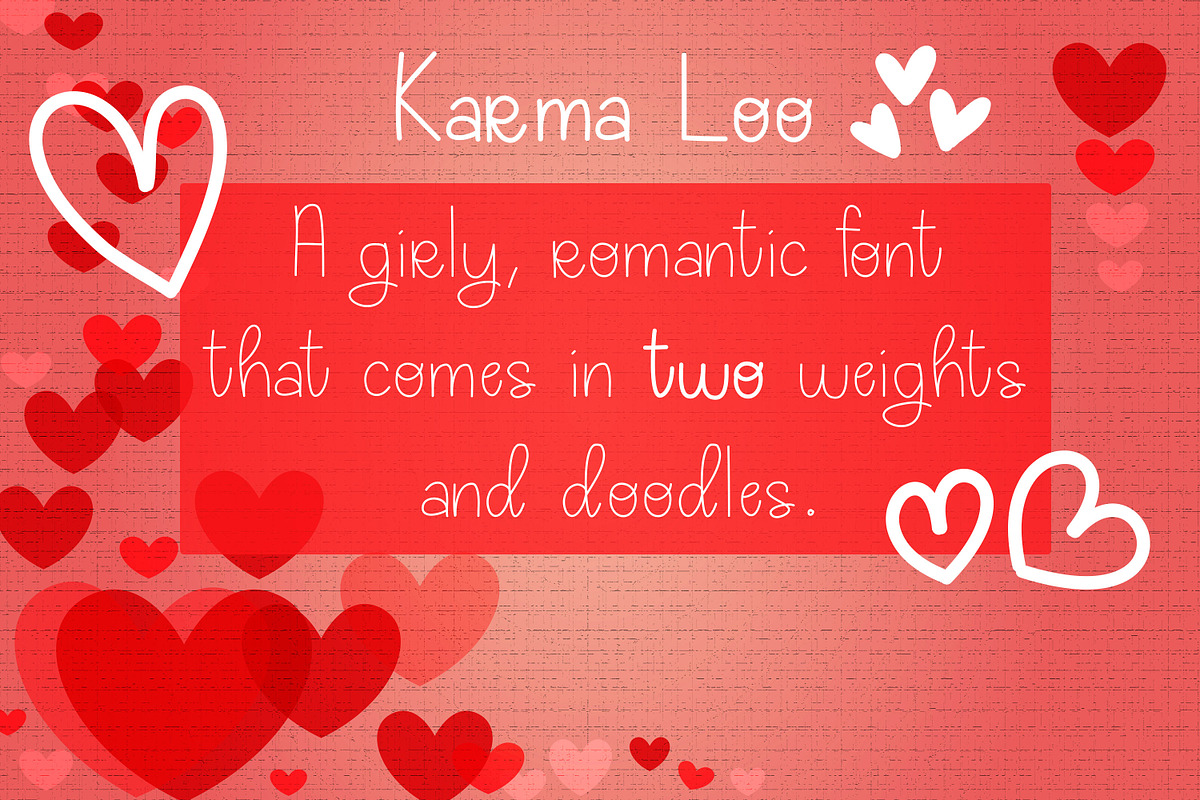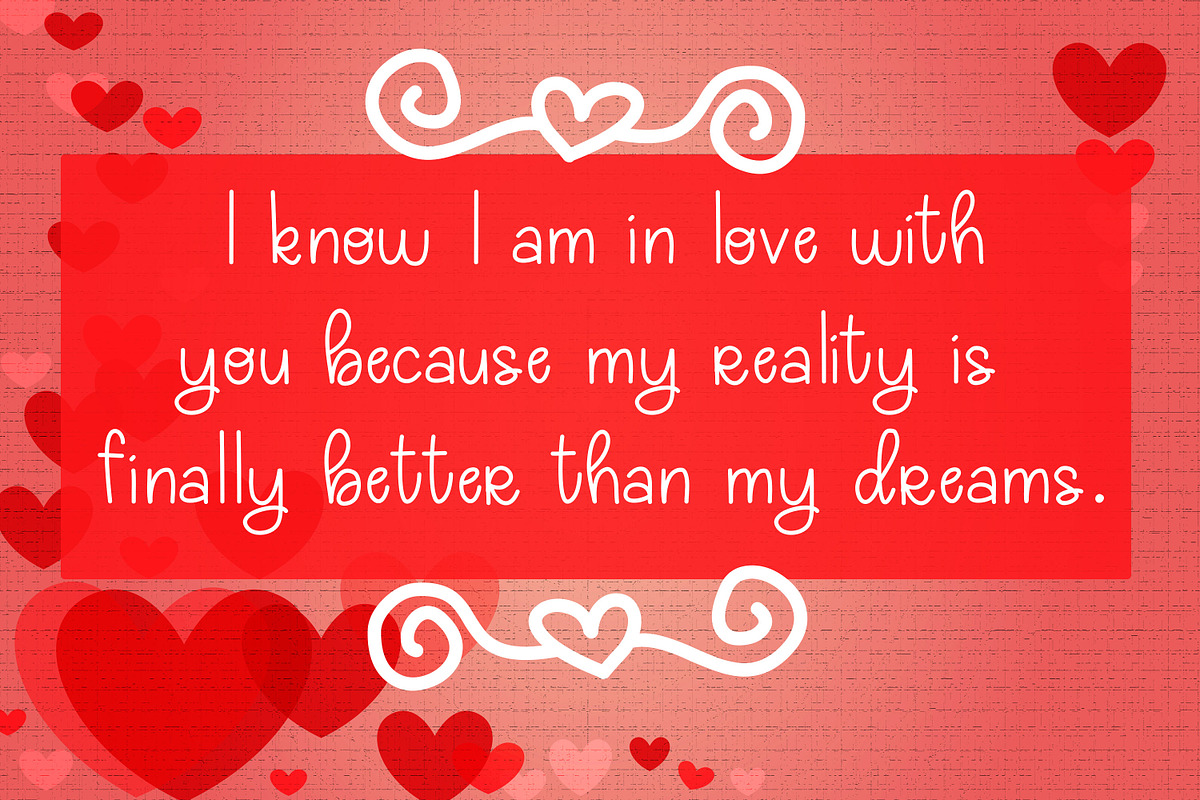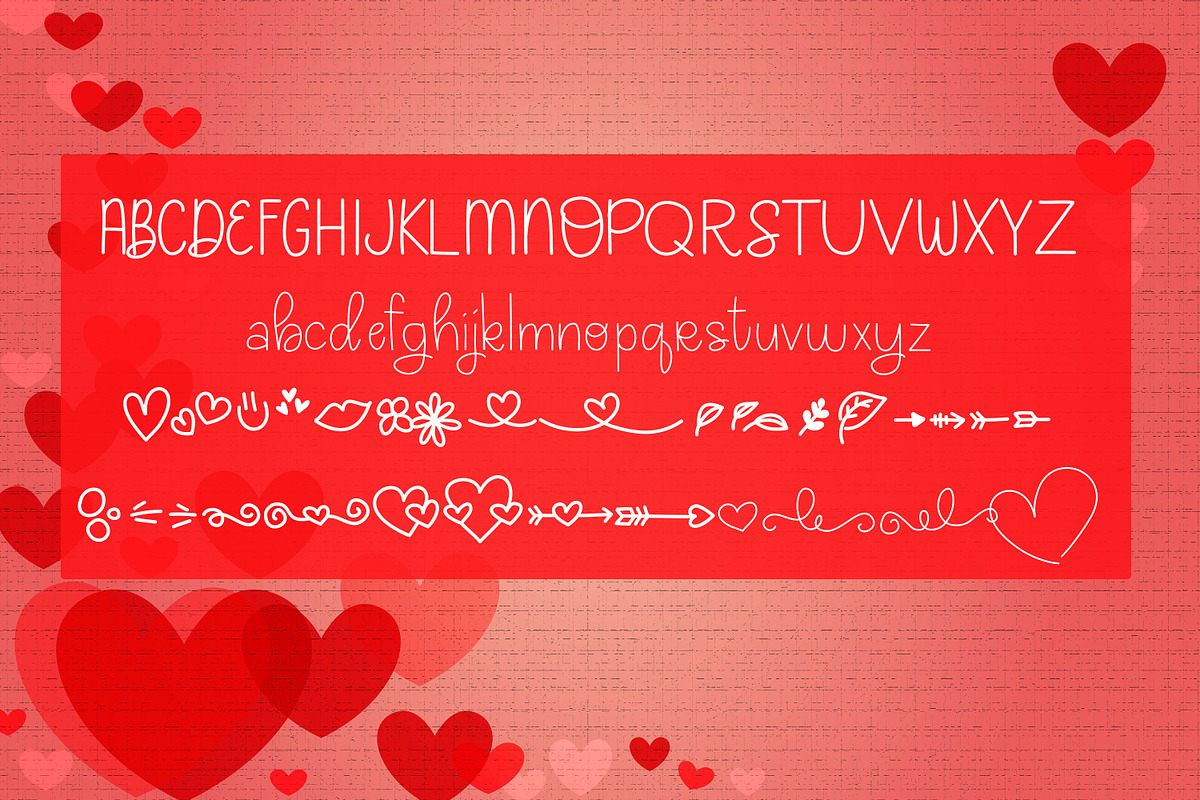
Karma Loo
Karma Loo is a cute, handwritten girly font. This font is perfect for Valentine's day cards, cute pseudo-handwritten notes (I get it, if your handwriting sucks, this one will do the job for you), and even charming logos. This font has a full set of uppercase and lowercase letters, two weights, and over 30 doodles. :) You can use this font for:
- greeting cards
- invitations
- posters
- t-shirt designs
- And more...
- Uppercase Characters
- Lowercase Characters
- Multilingual support for various languages: French, Spanish, Italian
- 30 girly doodles.